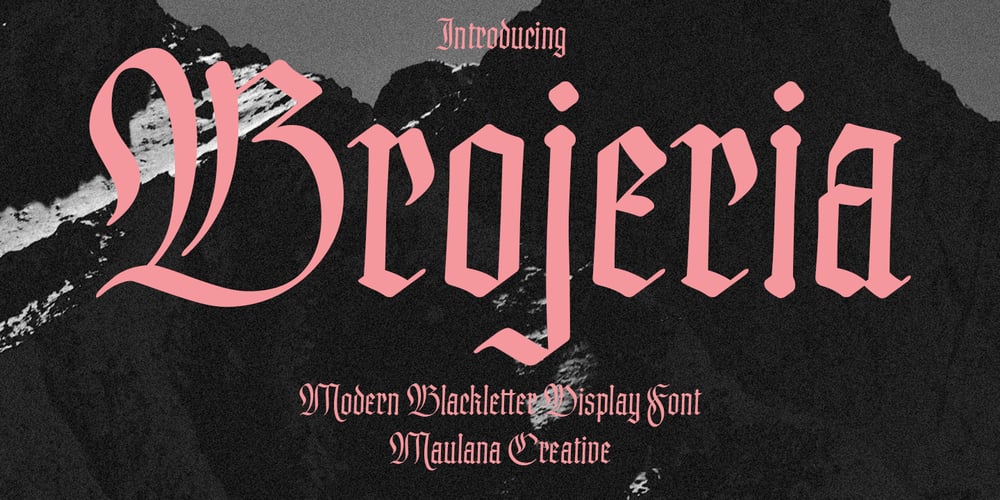
Brojeria Font Family was designed by Gilang Maulana and published by Maulana Creative. Brojeria contains 1 styles and family package options. Bojeria is a Classic modern Blackletter font. With medium high contrast stroke and smooth edges, fun character with a bit of ligatures and alternates. To give you an extra creative work. Bojeria font support multilingual more than 100+ language. This font is good for logo design, Social media, Movie Titles, Books Titles, a short text even a long text letter and good for your secondary text font with sans or serif. Make a stunning work with Bojeria font. Cheers, Maulana Creative